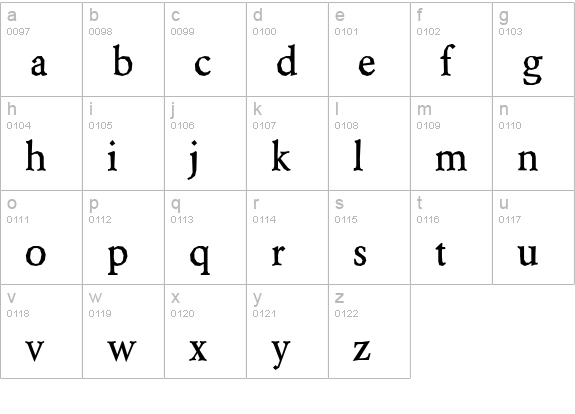
TR Berylium Bold Font Details
TR Berylium Bold is a strong, high-contrast variant in the TR typeface family \xE2\x80\x94 well suited to headlines, attention-grabbing titles, and strong calls-to-action.
TR Berylium Bold is a modern and versatile typeface that exudes confidence and strength. With its bold and striking design, this font is perfect for making a statement in your design projects. Whether you are creating posters, logos, or branding materials, TR Berylium Bold will surely catch the eye of your audience. The font features clean lines and sharp edges that give it a contemporary and edgy look. Its thick strokes and distinct letterforms make it stand out from the crowd. TR Berylium Bold is a great choice for projects that require a strong and impactful typography style. Best of all, TR Berylium Bold is completely free to download at FontsMarket.com. So you can elevate your designs with this stunning font without breaking the bank. Don't miss out on the opportunity to add TR Berylium Bold to your font collection today!